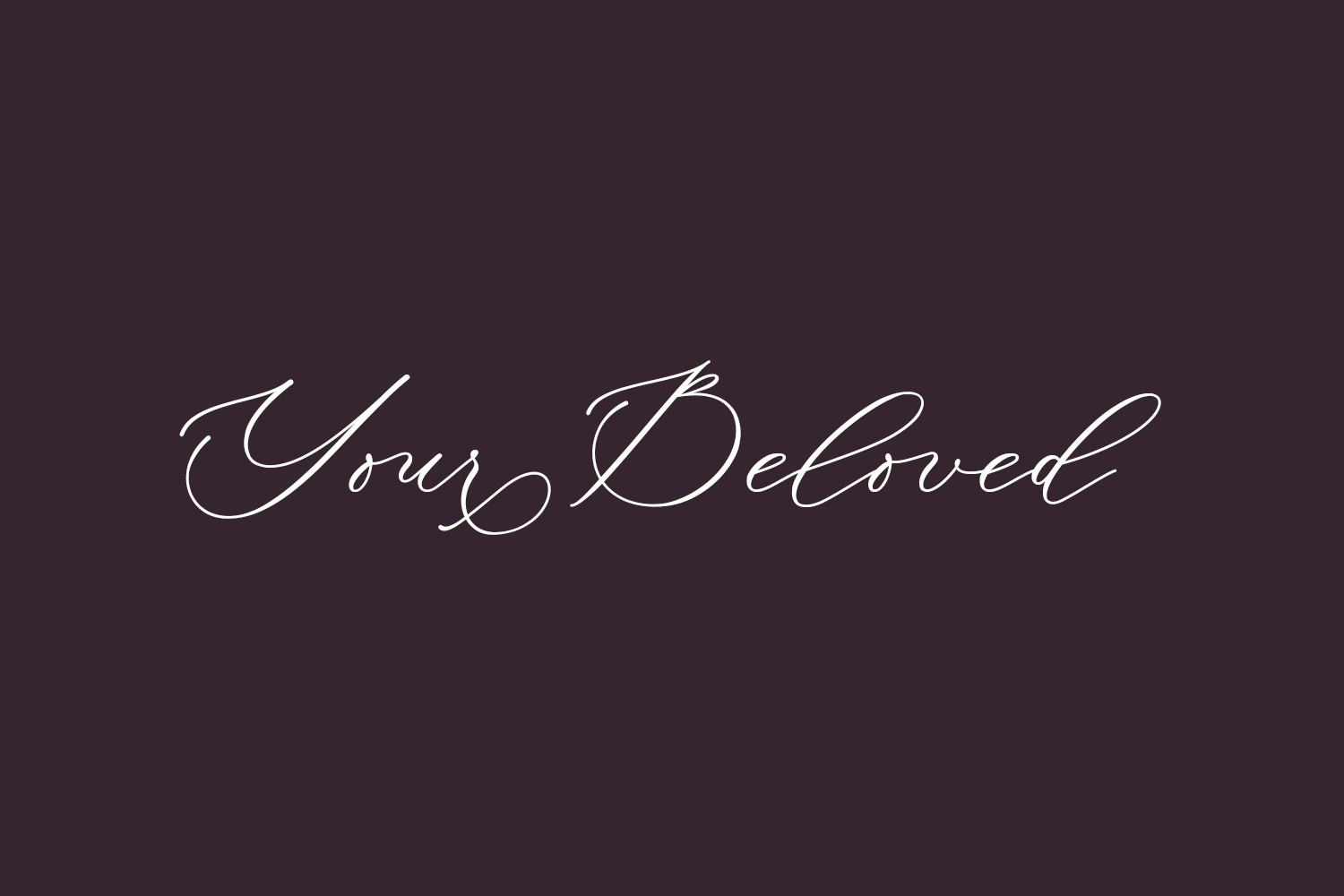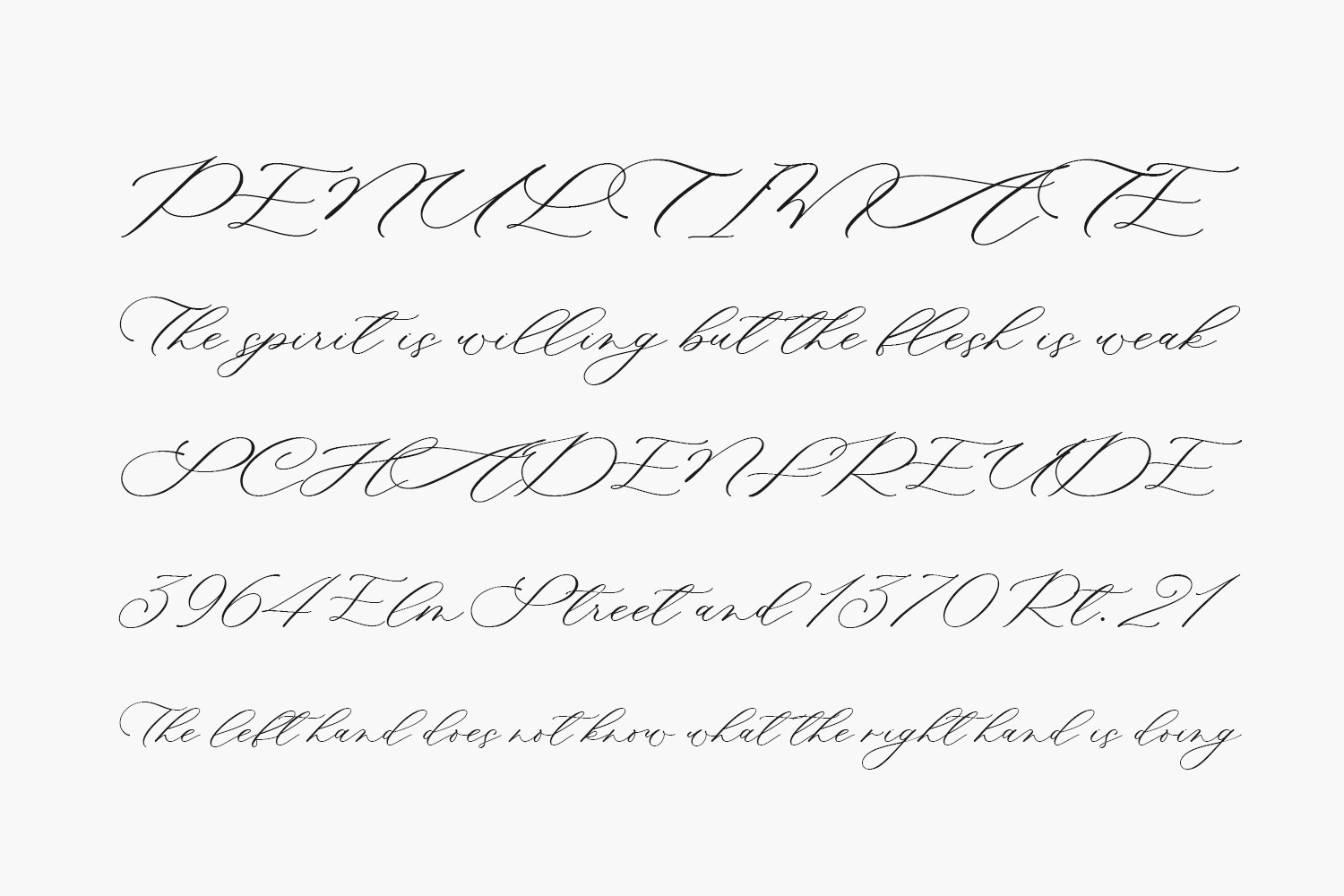
Your Beloved Free Font is an elegant and romantic calligraphy font characterized by its natural style. It stands out as the optimal option for crafting captivating logos, adding watermarks to photography, enhancing branding, and featuring quotes. Each letter possesses a distinct and exquisite essence, breathing life into your designs. Your Beloved Free Font is free for personal use only. Please purchase the full version for commercial use.
Designed by Four Lines